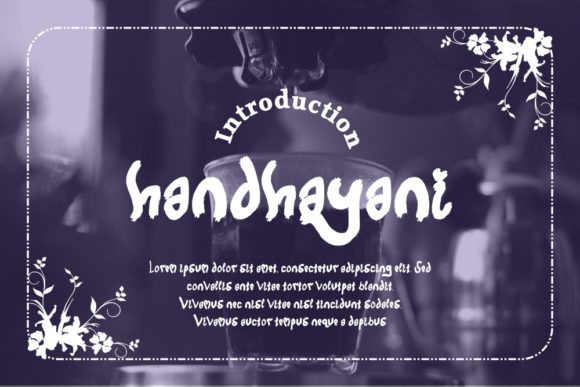
Prepare to be captivated by Handhayani, the font that will ignite your creativity and capture hearts with its irresistible style. This enchanting script font, meticulously crafted by the talented Gblack Id, exudes a captivating blend of boldness and authenticity.
Handhayani's effortless charm and readability make it the perfect choice for any occasion or project. Its versatility knows no bounds, gracefully complementing both vibrant backgrounds and standing tall as a captivating headline.
Imagine the impact your designs will make when adorned with the flair of Handhayani. Create stunning invitations that evoke a sense of timeless elegance, design social media posts that demand attention, or craft website headers that leave a lasting impression.
With Handhayani at your fingertips, you're empowered to express yourself with authenticity and flair. Its unique character will add a touch of magic to your creations, making them stand out from the crowd and captivating all who lay their eyes upon them.
Handhayani is more than just a font; it's an invitation to let your creativity soar, to make a statement, and to connect with your audience on a deeper level. Don't miss out on this exceptional opportunity to elevate your designs and captivate your audience. Embrace the power of Handhayani today and unlock a world of creative possibilities!